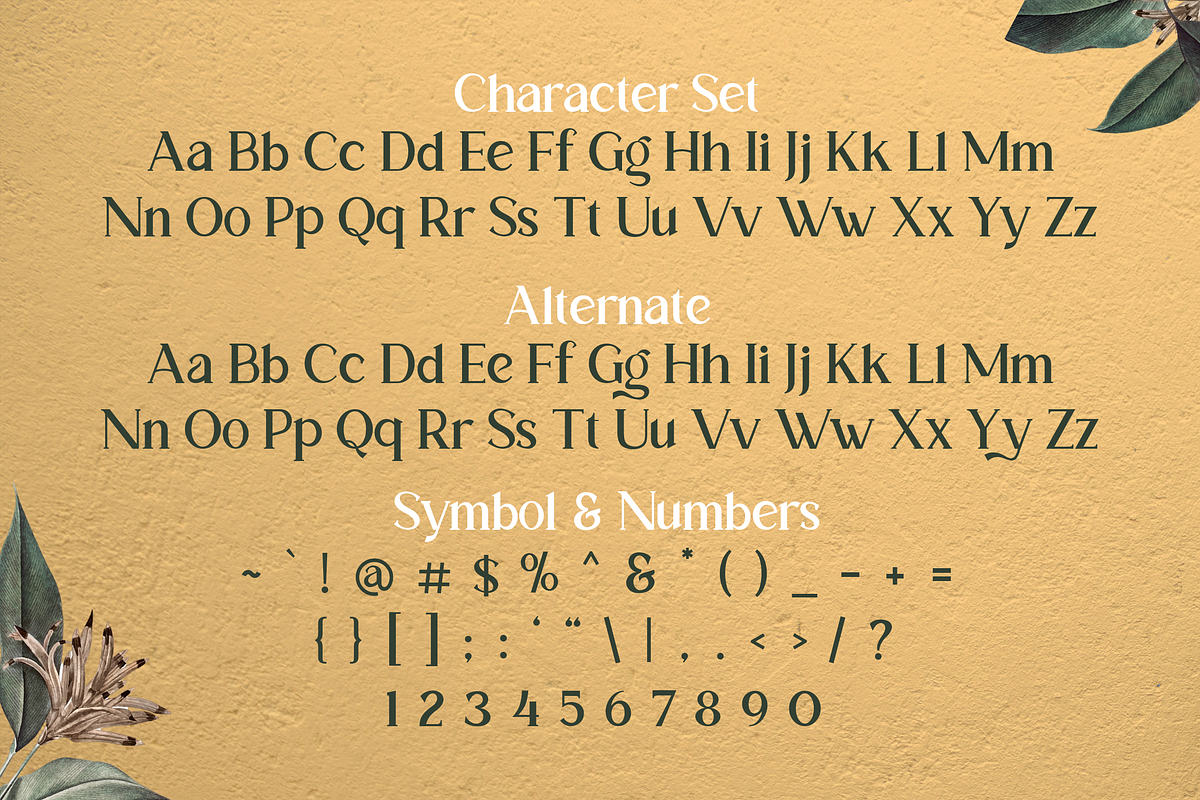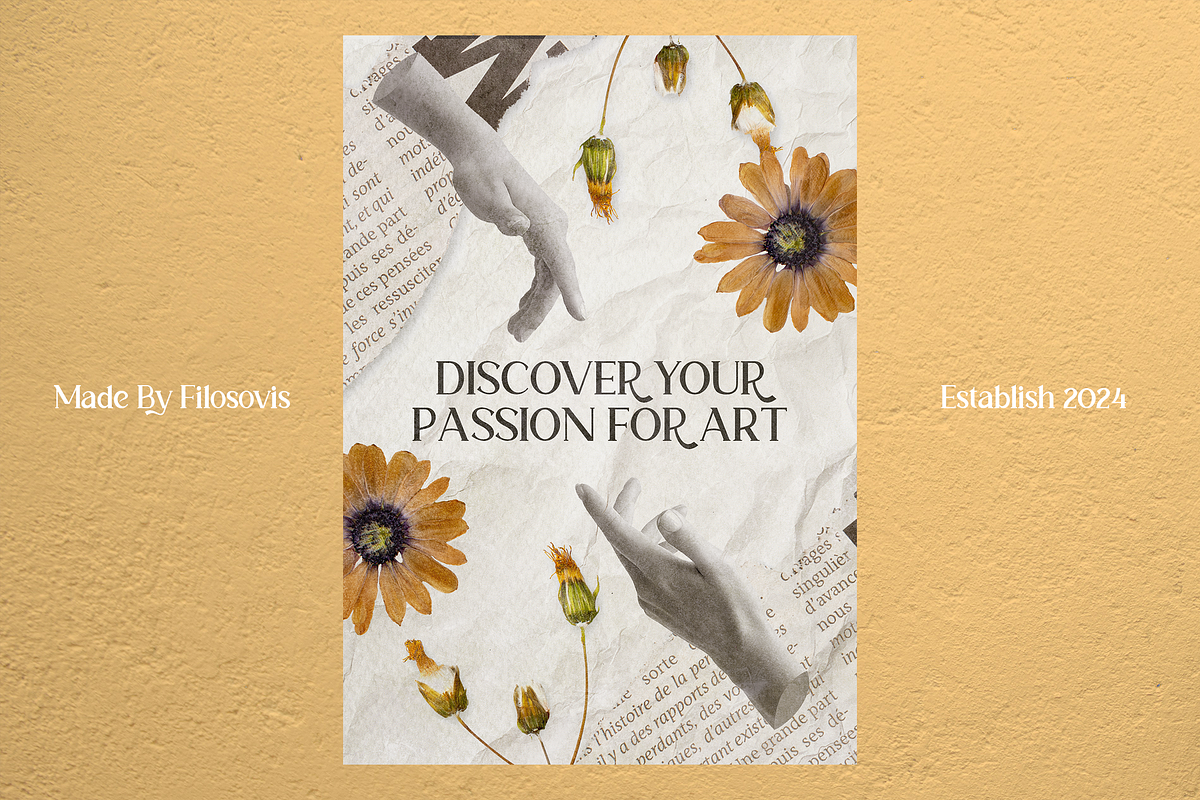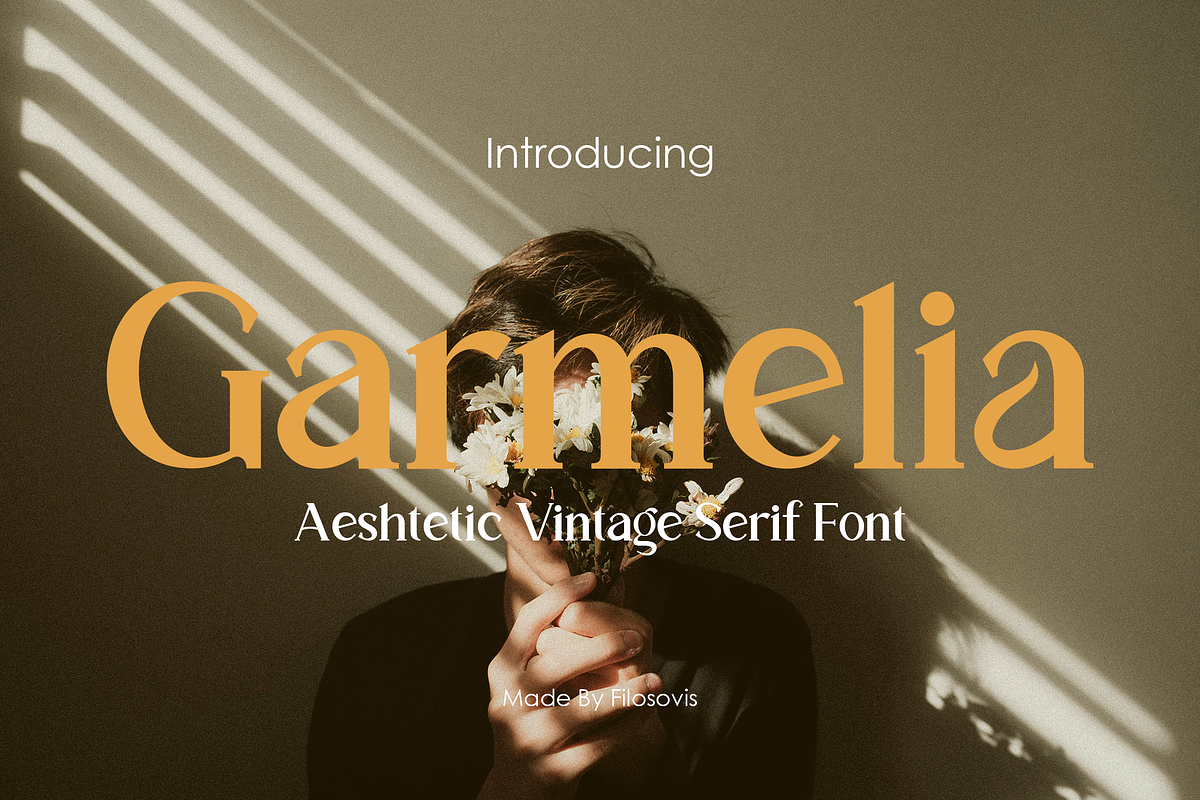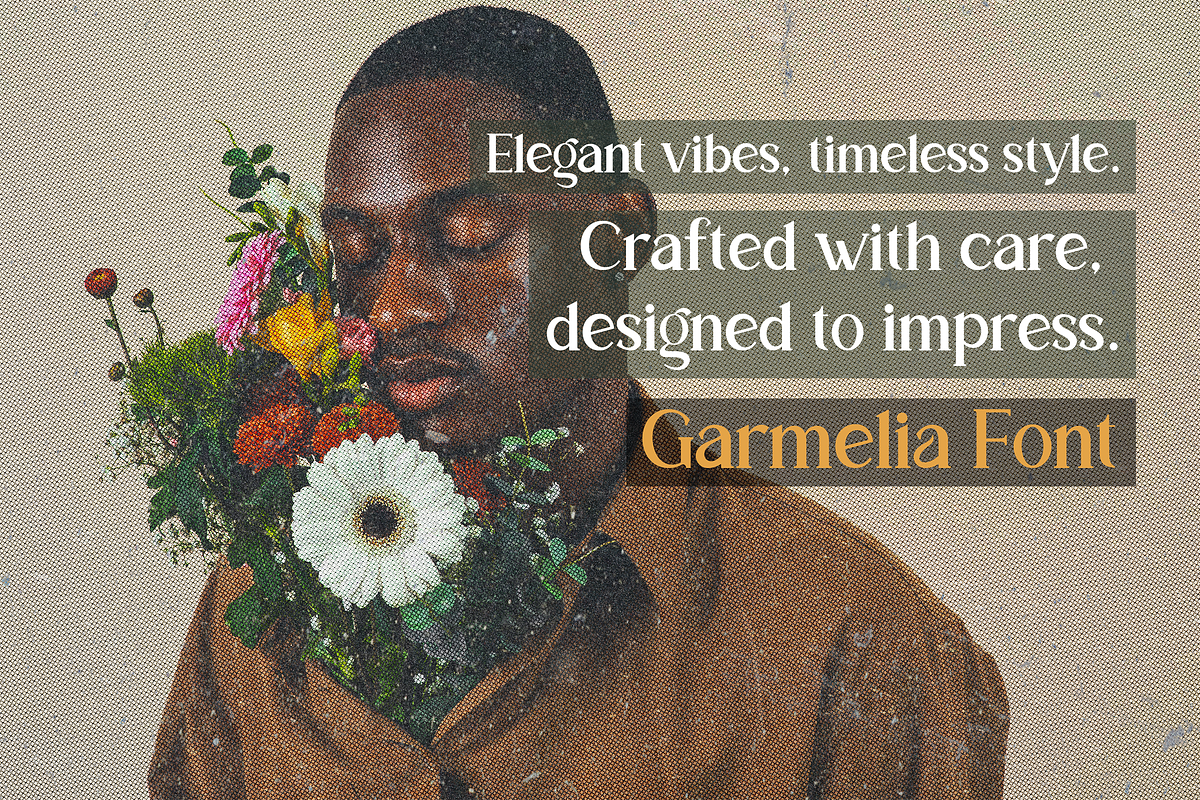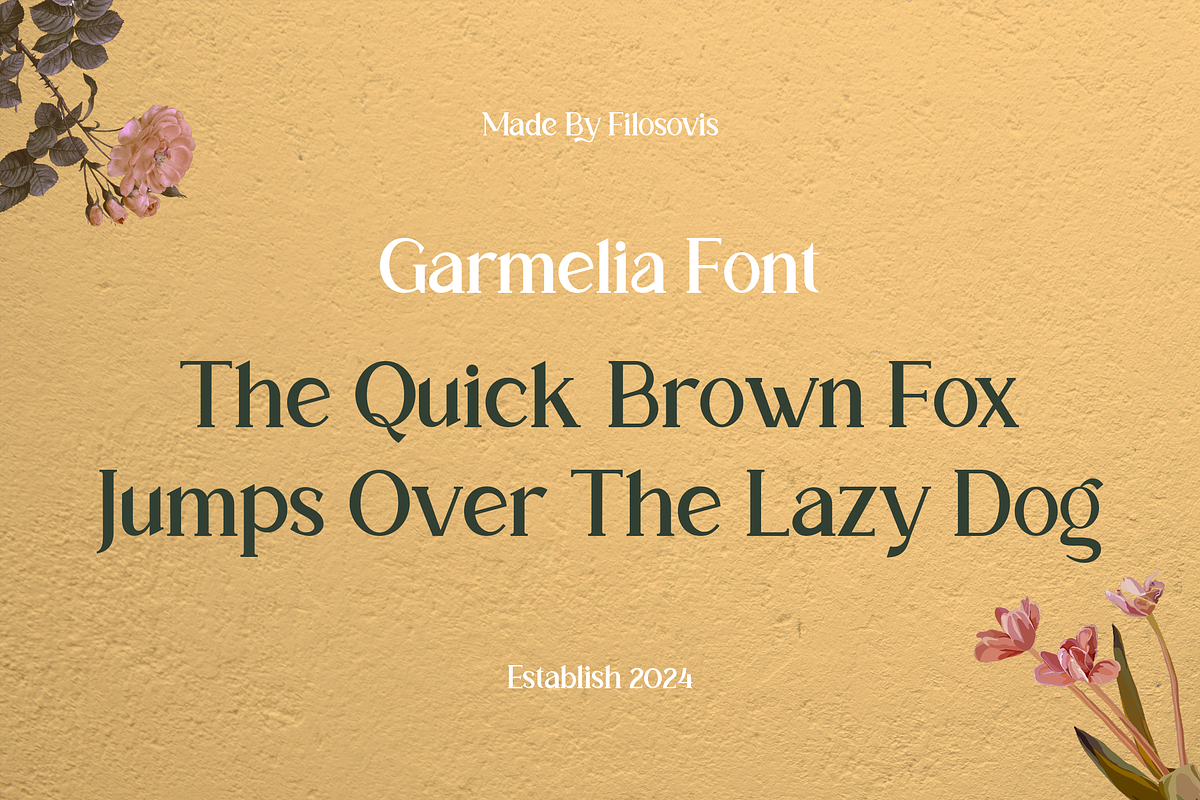
Garmelia | Aeshtetic Vintage Serif
Garmelia is a aeshtetic vintage serif font that adds a playful twist to any design. With its whimsical letterforms and unique charm, it's perfect for eye-catching headlines, vibrant posters, and playful branding projects. Infuse your creations with joy and personality with Garmelia!